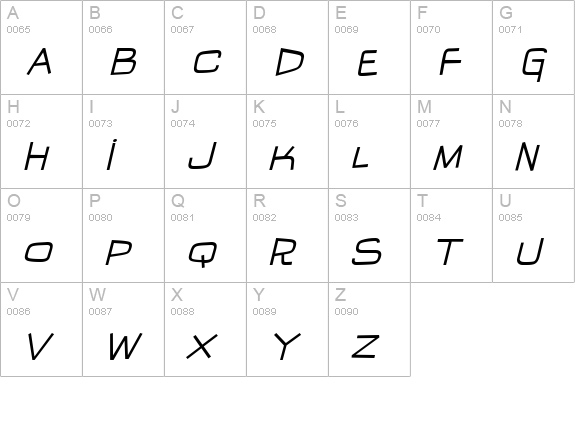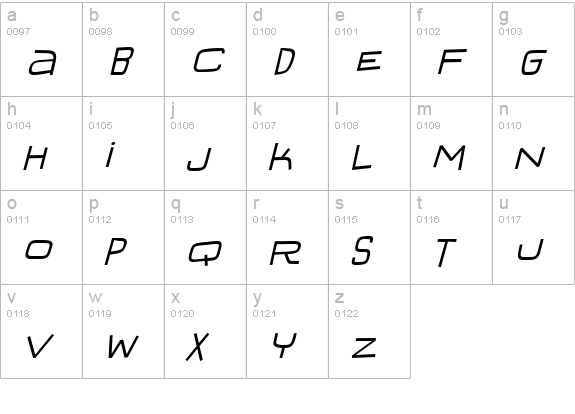
IguanaLover BTN Oblique is a distinctive, italic variant in the IguanaLover typeface family \xE2\x80\x94 well suited to design and typography projects.
IguanaLover BTN Oblique font is a unique and captivating typeface that captures the essence of elegance and playfulness. Designed with a subtle slant, this font adds a touch of dynamism to any design project. With its smooth curves and sleek lines, IguanaLover BTN Oblique font exudes a sense of sophistication and artistic flair. Whether it's used for headlines, logos, or body text, this font will instantly elevate any design and make it stand out from the crowd. One of the most remarkable aspects of IguanaLover BTN Oblique font is that it is freely available to download at FontsMarket.com. This means that designers and enthusiasts alike can access this stunning typeface without any cost. Its availability for free makes it an even more desirable choice for those looking to add a touch of creativity and style to their projects. The versatility of IguanaLover BTN Oblique font is another reason to love it. It seamlessly adapts to various design styles and themes, making it suitable for a wide range of applications. Whether you're working on a vintage-inspired poster, a modern website, or a playful branding project, this font will effortlessly complement your design vision. In addition to its aesthetic appeal, IguanaLover BTN Oblique font is also highly legible, ensuring that your message is effectively communicated to your audience. Its carefully crafted letterforms ensure clarity without compromising on style. Overall, IguanaLover BTN Oblique font is a must-have for designers and typographers who appreciate the power of a well-designed typeface. Its combination of elegance, playfulness, and versatility, along with the fact that it is freely available to download at FontsMarket.com, makes it a valuable addition to any font library. So why wait? Download IguanaLover BTN Oblique font today and unlock a world of creative possibilities.